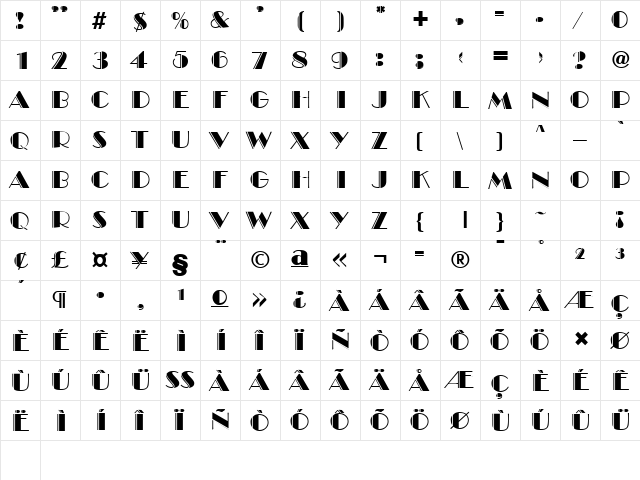
BroadwayEngraved DB Regular
Design Context for BroadwayEngraved DB Typeface
BroadwayEngraved DB is built around its visual character rather than neutral utility — its distinctive forms are designed to make an impression at display sizes.
Font Pairing: Pair with a clean neutral sans-serif for body copy to let BroadwayEngraved DB's character lead without overwhelming the composition.
Pro Tip: Use BroadwayEngraved DB exclusively at display sizes — it was designed to be seen, not read at length. Let a neutral companion handle body copy.